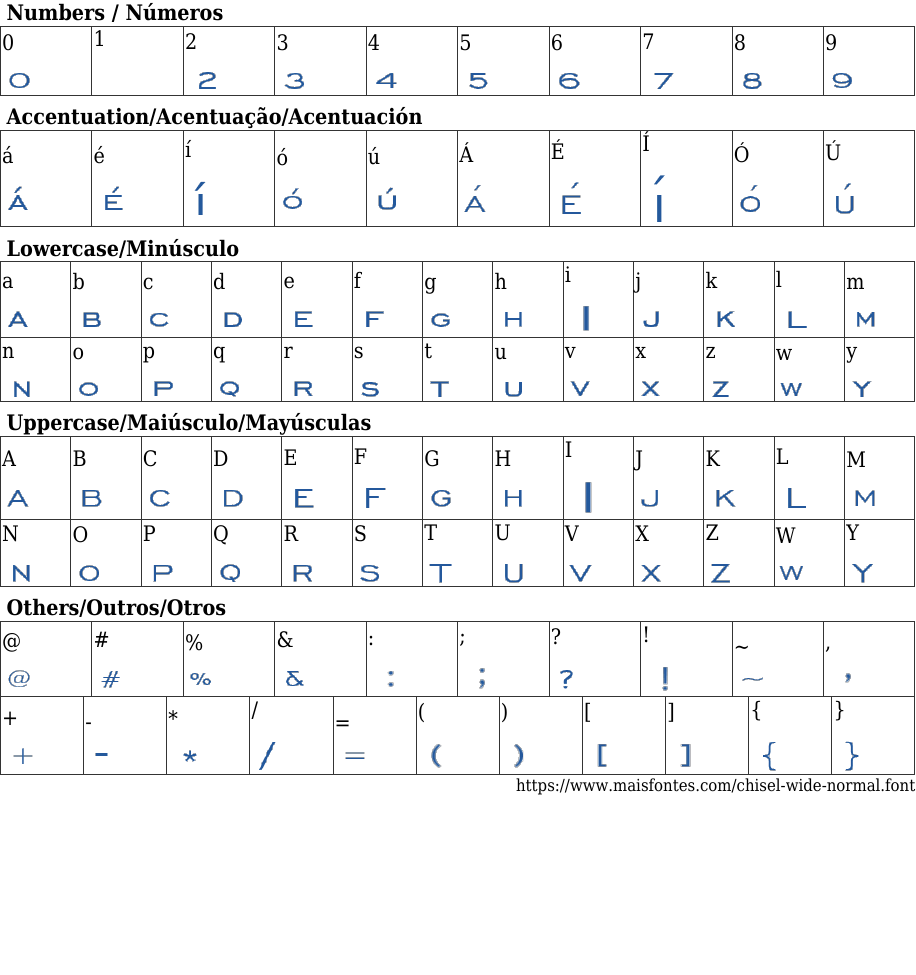
Chisel Normal Font Free Download . Chisel extended normal font free download. See how to download chisel extended normal. Click to find the best 9 free fonts in the chisel style. Chisel regular font free download. Download free chisel normal font (34 kb) chisel font family. ️ diese schriftart wurde heruntergeladen 10,000+. ️ customize your own preview on ffonts.net to make sure. The chisel normal font contains 219 beautifully designed characters. Squealer is a blackletter hard rock headliner. Its powerful letterforms and chiseled edges will give your message a punch. Share chisel normal free font. A great choice for highlighting your design elements. Every font is free to download! Click to find the best 39 free fonts in the chiseled style. Laden sie das herunter und installieren sie es chisel normal schrift kostenlos von ffonts.net.
Download free chisel normal font (34 kb) chisel font family. A great choice for highlighting your design elements. See how to download chisel extended normal. Squealer is a blackletter hard rock headliner. ️ diese schriftart wurde heruntergeladen 10,000+. Chisel extended normal font free download. Laden sie das herunter und installieren sie es chisel normal schrift kostenlos von ffonts.net. Its powerful letterforms and chiseled edges will give your message a punch. The chisel normal font contains 219 beautifully designed characters. Every font is free to download!
Chisel Normal Font Free Download Squealer is a blackletter hard rock headliner. Share chisel normal free font. Its powerful letterforms and chiseled edges will give your message a punch. Squealer is a blackletter hard rock headliner. Laden sie das herunter und installieren sie es chisel normal schrift kostenlos von ffonts.net. Every font is free to download! Click to find the best 39 free fonts in the chiseled style. Chisel extended normal font free download. The chisel normal font contains 219 beautifully designed characters. ️ customize your own preview on ffonts.net to make sure. ️ diese schriftart wurde heruntergeladen 10,000+. Chisel regular font free download. A great choice for highlighting your design elements. Every font is free to download! Download free chisel normal font (34 kb) chisel font family. Click to find the best 9 free fonts in the chisel style.
Chisel Font Free Download Chisel Normal Font Free Download Every font is free to download! Download free chisel normal font (34 kb) chisel font family. The chisel normal font contains 219 beautifully designed characters. Click to find the best 39 free fonts in the chiseled style. Chisel regular font free download. Click to find the best 9 free fonts in the chisel style. Chisel extended normal font free download.. Chisel Normal Font Free Download.
Chisel Com Regular Fonts Chisel Normal Font Free Download Laden sie das herunter und installieren sie es chisel normal schrift kostenlos von ffonts.net. Click to find the best 39 free fonts in the chiseled style. Every font is free to download! Chisel extended normal font free download. Its powerful letterforms and chiseled edges will give your message a punch. See how to download chisel extended normal. A great choice. Chisel Normal Font Free Download.
Chisel Font Free Download Chisel Normal Font Free Download Squealer is a blackletter hard rock headliner. Click to find the best 9 free fonts in the chisel style. ️ diese schriftart wurde heruntergeladen 10,000+. Its powerful letterforms and chiseled edges will give your message a punch. Click to find the best 39 free fonts in the chiseled style. Every font is free to download! ️ customize your own preview. Chisel Normal Font Free Download.